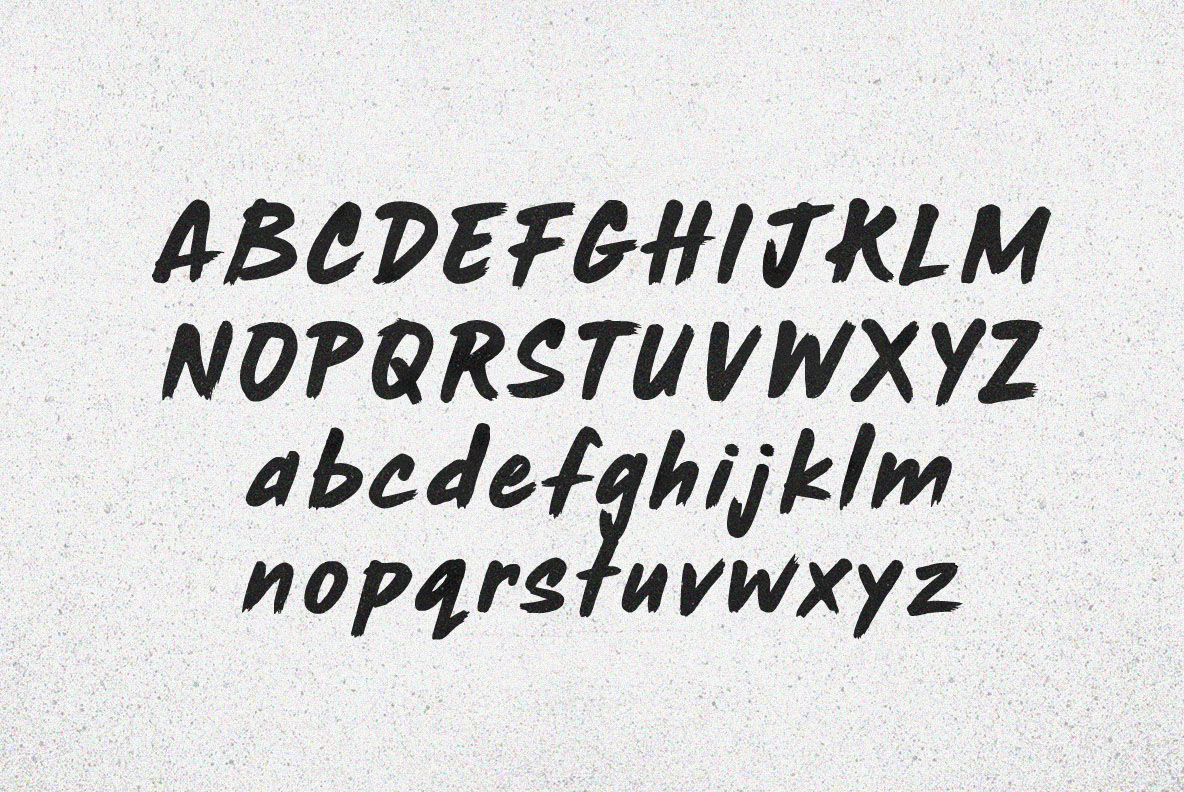
Rush Hour Brush Font
Continue to be a typography designed by professional BLKBK designer. Introducing Rush Hour. It’s a hand brushed script created with a brush and ink. Rush Hour Font will look lovely on cards, wedding invitations, headings, branding materials, quotes, t-shirt and any other amazing projects you are working on.